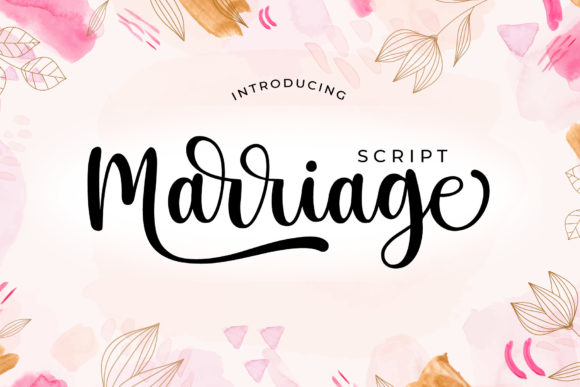
Welcome to the realm of elegance and creativity, where words take on an enchanting dance, and letters become tantalizing works of art. Step into the world of Marriage Script Font, a masterpiece crafted by the skilled hands of fokira, specifically designed to capture the essence of charm and sophistication.
Marriage Script, a script font that exudes a touch of vintage and timeless appeal, is perfect for those seeking to add a dash of romance and personality to their projects. Its meticulously crafted characters, each imbued with a delicate, flowing grace, will leave you enchanted.
Unleash your creativity and embark on a delightful journey as you explore the endless possibilities of this versatile font. It's an ideal companion for a wide array of creative endeavors, from heartwarming invitations and elegant wedding stationery to eye-catching logos and captivating branding materials.
Imagine your words taking on a life of their own, as they swirl and dance across the page, thanks to the artistry of Marriage Script. Let your imagination soar and your projects flourish with this font's enchanting aura.
Dive into the world of SVG designs, where Marriage Script shines as a true star. Create personalized shirts and crafts that reflect your unique style. Explore the realm of procreate, branding, and blogging, where this font will elevate your designs and leave a lasting impression.
In the realm of Cricut projects, Marriage Script stands as a trusted ally, transforming your ideas into tangible masterpieces. Whether you're a seasoned Cricut enthusiast or just starting your creative journey, this font will guide you towards stunning results.